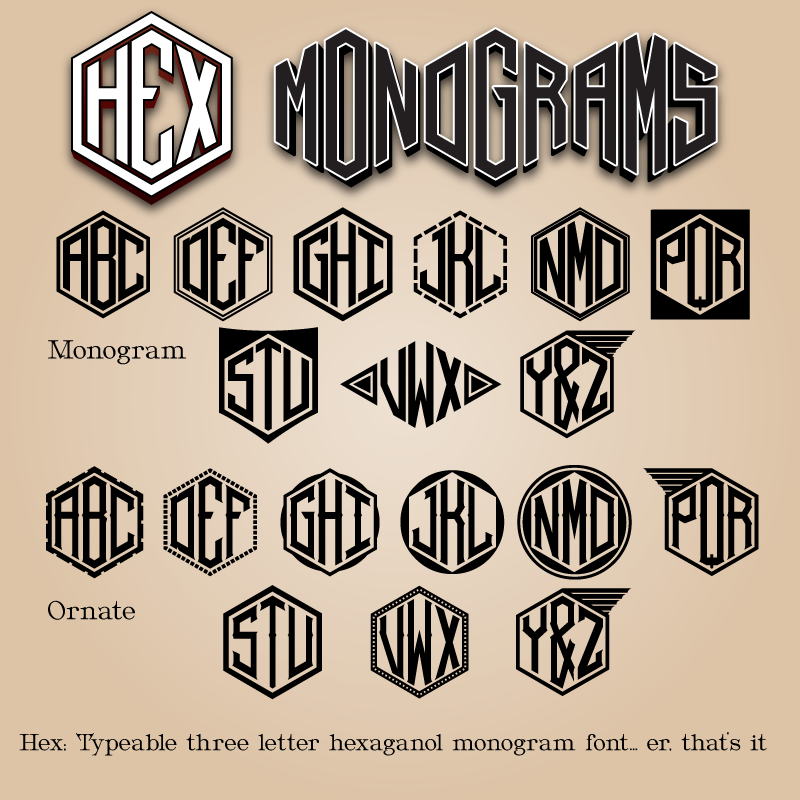
Hex is a type-able three letter hexagonal monogram font. That’s all it does. You can type a Hexagonal Monogram with a border. Two styles are included, Monogram or Ornate, which has serifs and median spurs. It requires Discretionary Ligatures to be supported AND enabled to work ‘out of the box’, so please check the read me pdf for details of how to use it and for useful links to show you applications that support Open Type features it relies on to work (thanks Vinz). Hex is usable without the Dlig features enabled, but you will have to locate the final glyph in any monogram in glyphs panel, character viewer or whatever to add it. You can mix and match Hex Monogram and Hex Ornate in the same monogram, but only manually. The Read Me pdf also contains a key map showing you where the borders and a few special characters are located, (including a Mc Ligature, for our Scottish cousins. Thanks Claude) so seriously, read it! Hex was created as a personal project to learn how to use Dlig features and as such is served to you 100% free and as is. If you like Hex, feel free to show your appreciation by making a modest donation to the “Prevent the Wolf Door Convergence fund” using the donate button. Should you have the good fortune to find a commercial project it’s suitable for, similarly, sharing some of your good fortune with a small donation would be considered good manners. Thanks to the naughty mods and staff of Dafont, as ever for getting me up and running. Hope you enjoy. Pil |